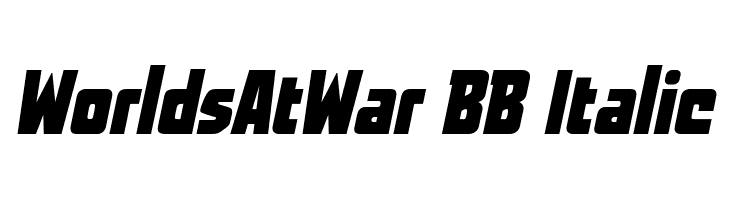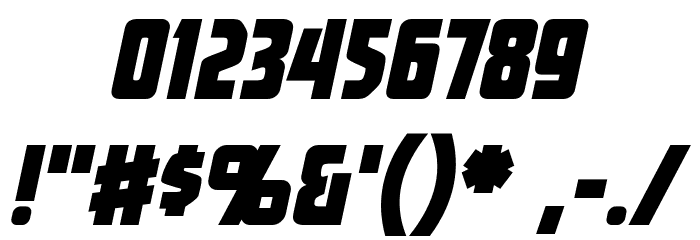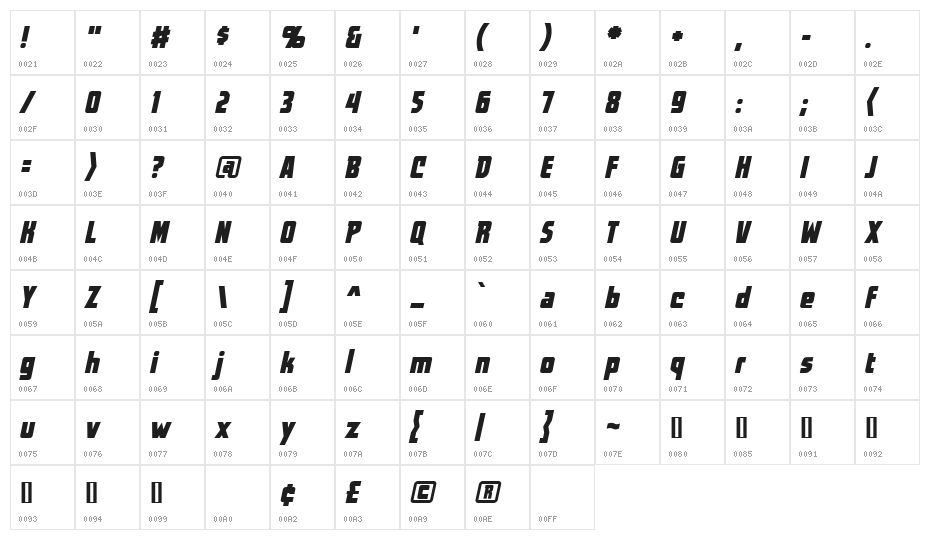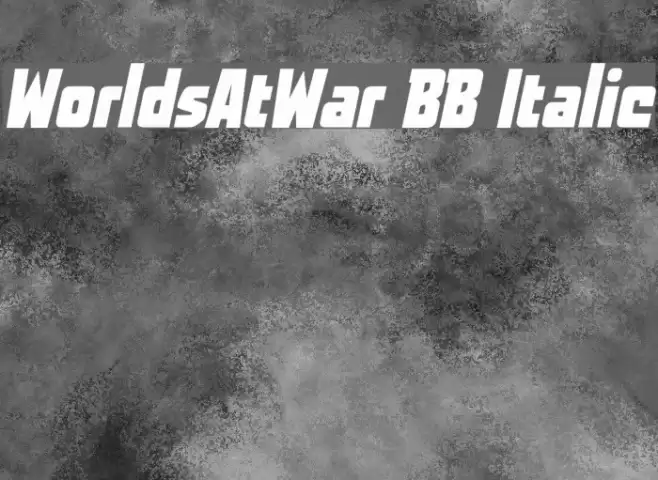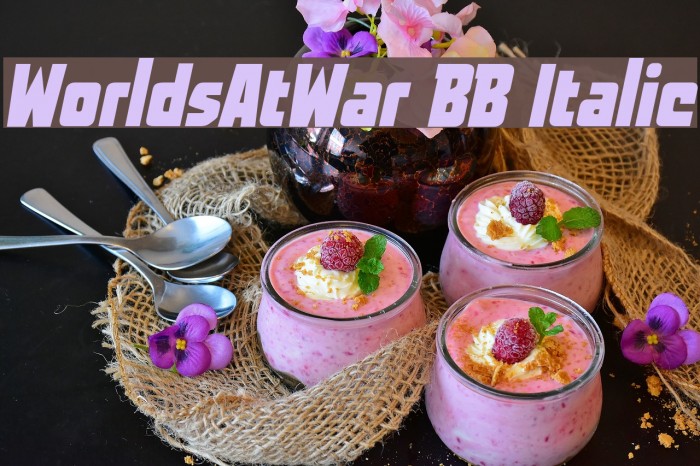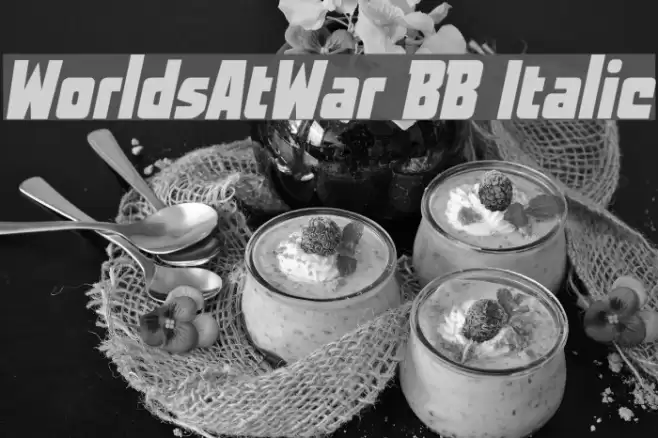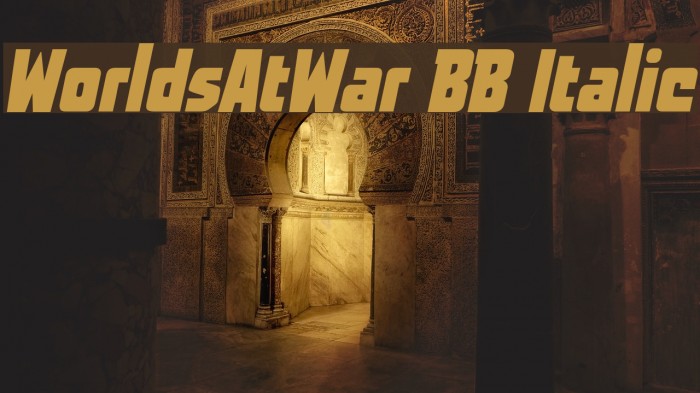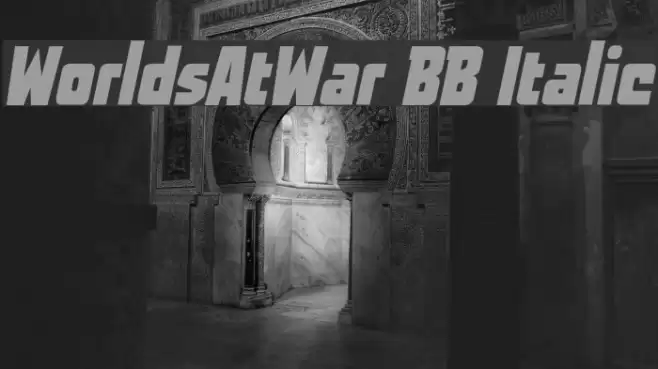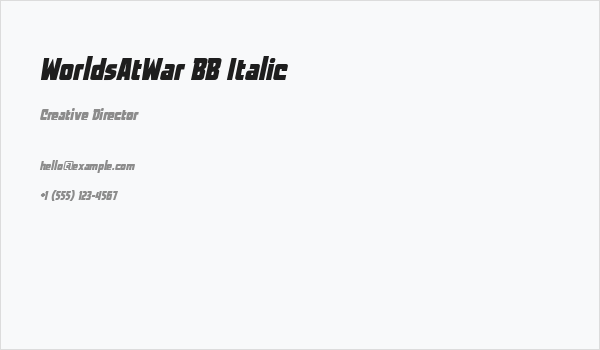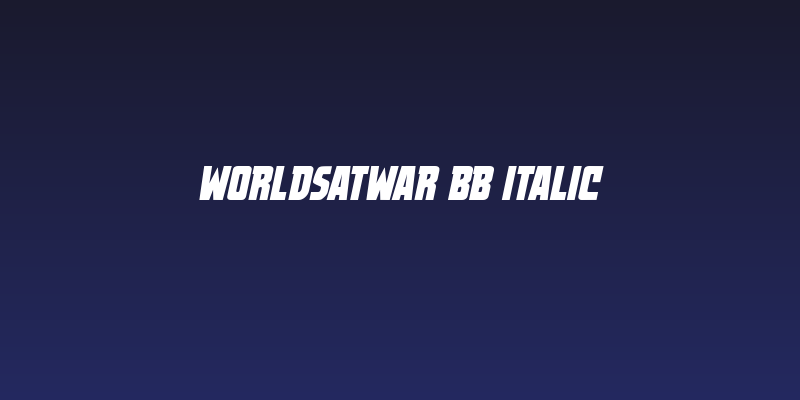
WorldsAtWar BB Italic Font
WorldsAtWar BB Italic Description
This font features a bold, italicized style with a strong, dynamic presence. The characters are slightly slanted, giving a sense of motion and urgency. The strokes are thick and consistent, providing a robust and impactful appearance. The uppercase and lowercase letters maintain a uniform width, contributing to a cohesive look. The numbers and special characters are designed to match the boldness of the alphabet, ensuring a harmonious overall style. This font is ideal for projects that require a strong visual impact, such as posters, headlines, or branding materials.
| Proposed Projects | Ideal for posters, headlines, branding, and any project needing a strong visual impact. |